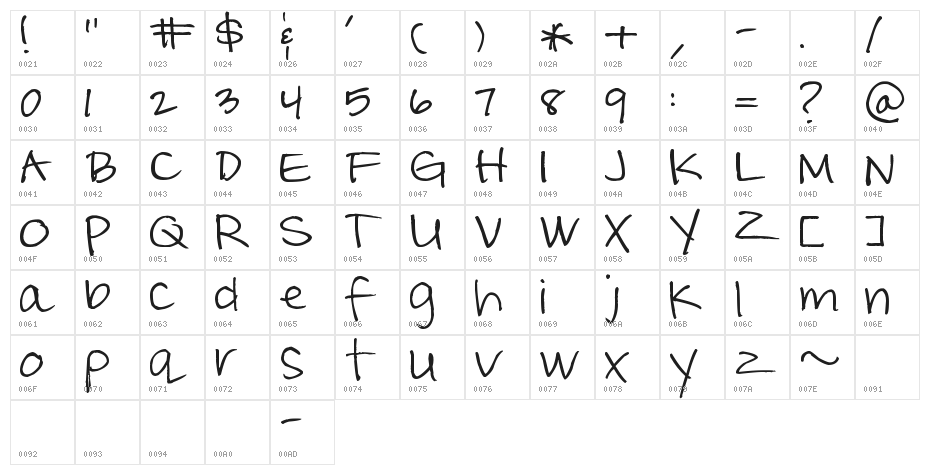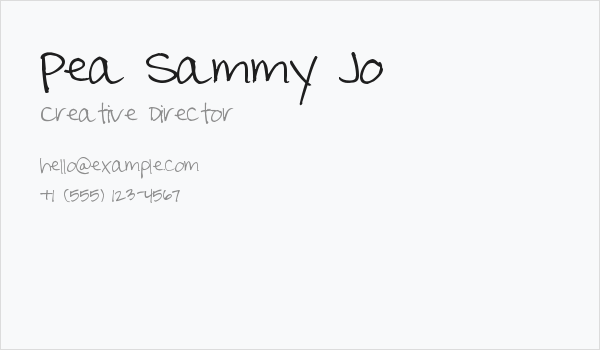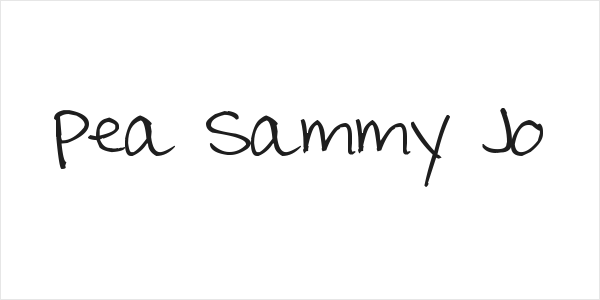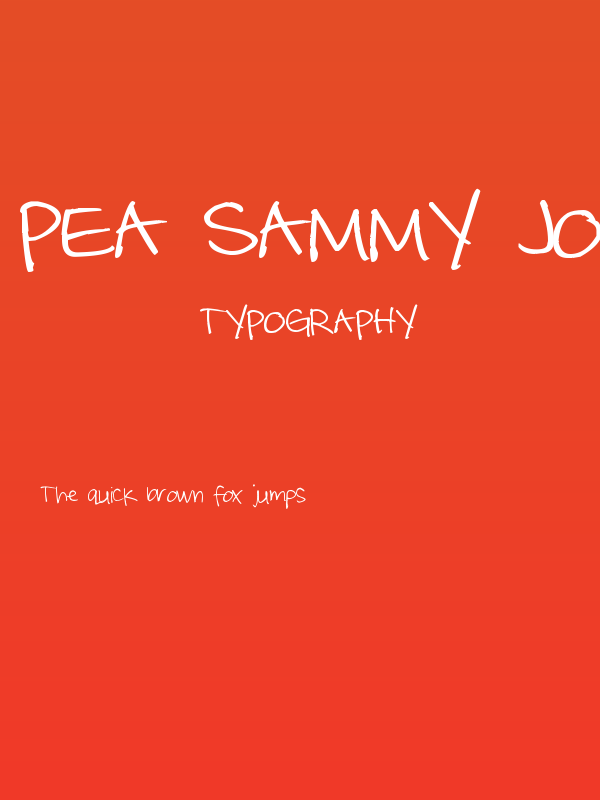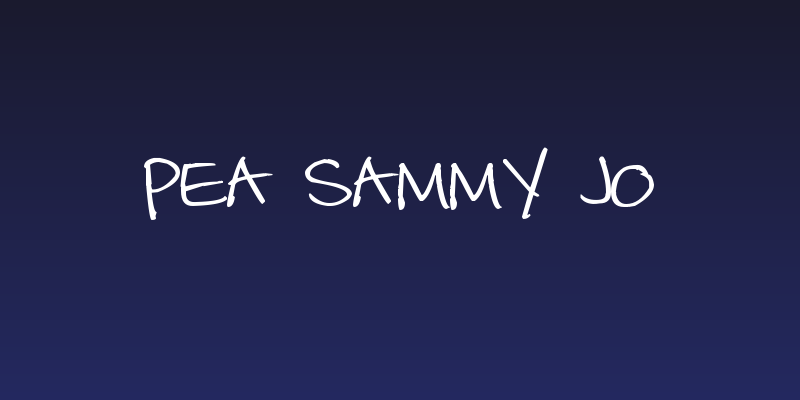
Pea Sammy Jo Font
Pea Sammy Jo Description
This font exudes a playful and casual handwritten style, characterized by its irregular, slightly slanted strokes that mimic the natural flow of handwriting. The letters are uneven in height and width, giving it an authentic, personal touch. The uppercase and lowercase letters maintain a consistent style, with rounded edges and a slightly rough texture that adds to its charm. The numerals and special characters follow the same informal aesthetic, making it versatile for creative projects. Its informal and friendly appearance makes it suitable for designs that aim to convey warmth and approachability.
| Use Case | Logos, Invitations, Personal Projects |
| Proposed Projects | Ideal for greeting cards, personal notes, children's books, and informal branding. |